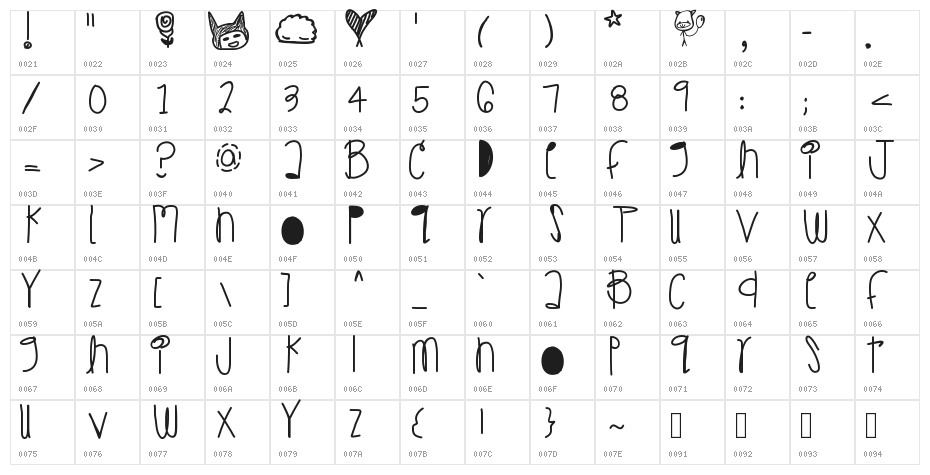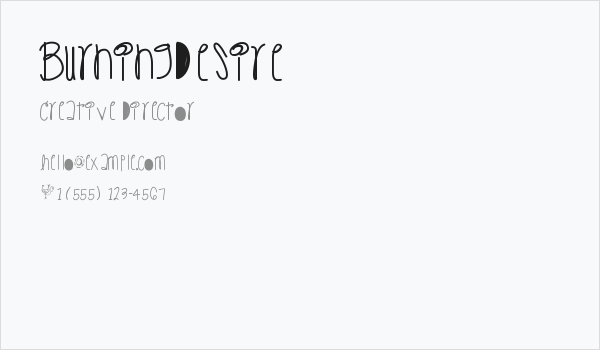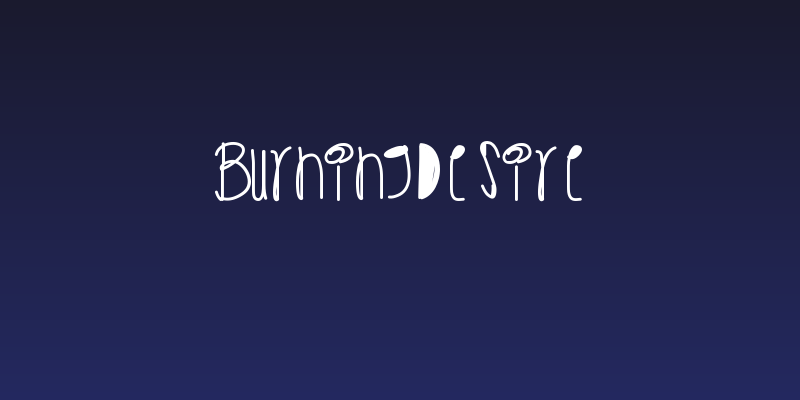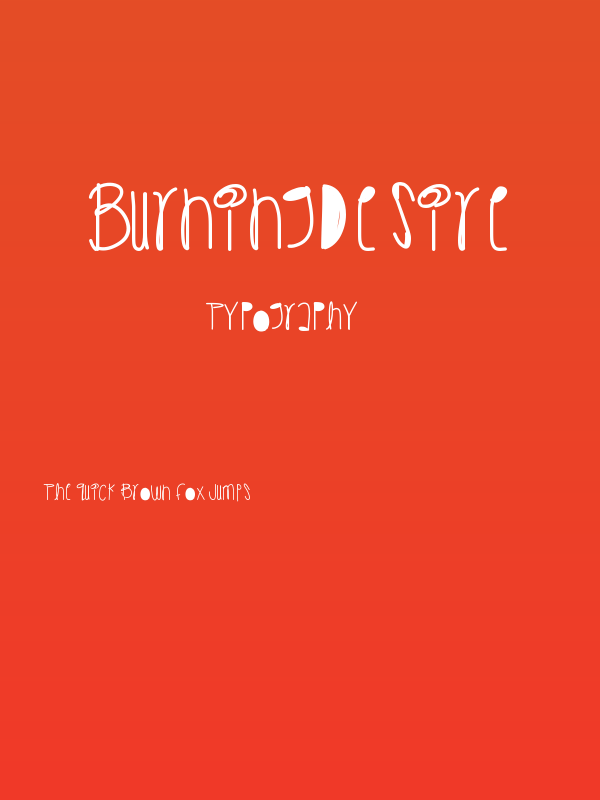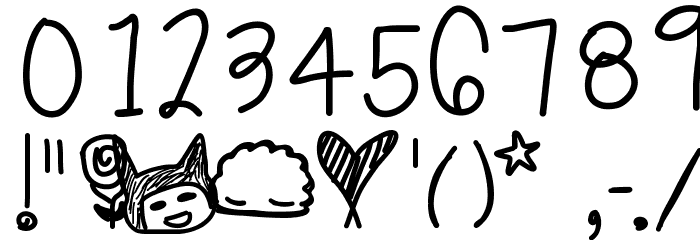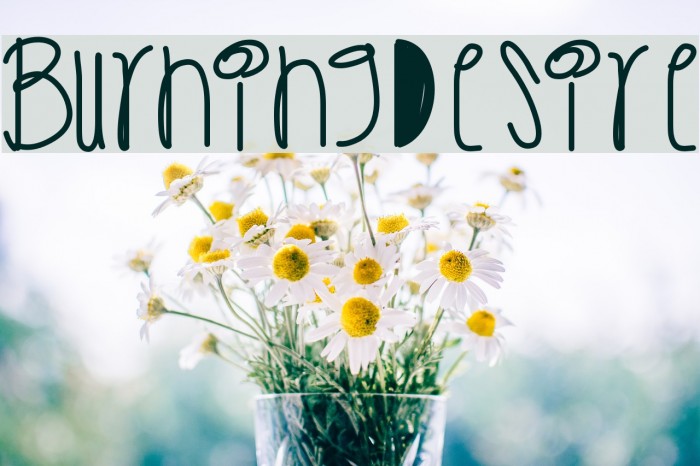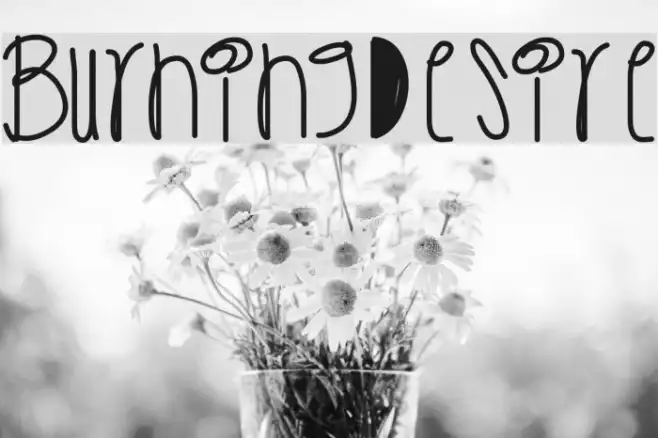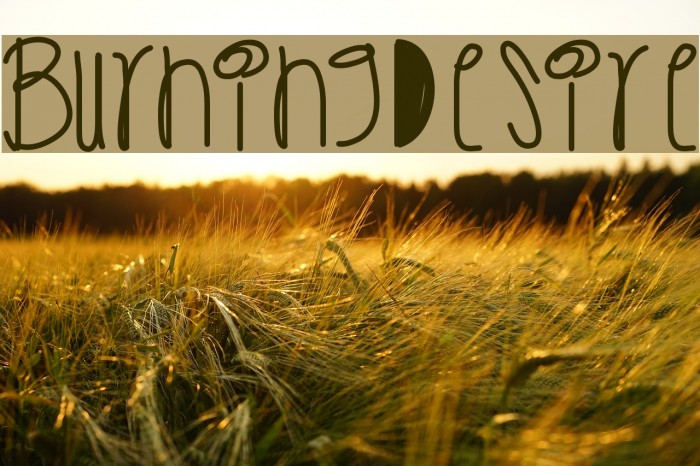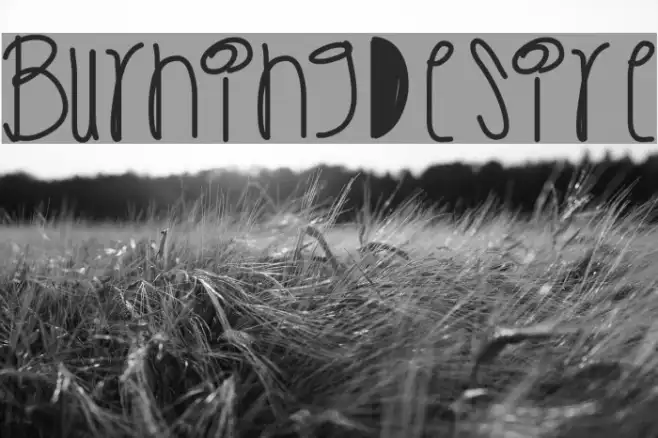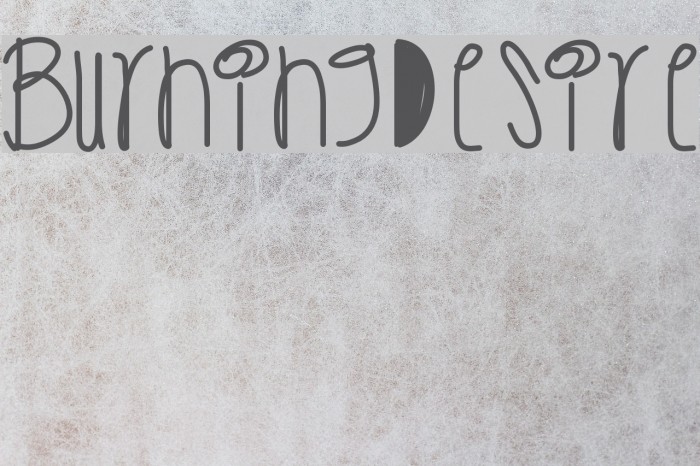
BurningDesire Font
BurningDesire Description
This playful and whimsical font features a unique blend of rounded and elongated characters, giving it a lively and energetic appearance. The uppercase and lowercase letters maintain a consistent style, with some letters exhibiting exaggerated curves and loops. The numbers are similarly styled, with a playful touch that complements the overall design. Special characters include a variety of fun and quirky symbols, adding to the font's charm. This font is perfect for projects that require a touch of creativity and fun, such as children's books, playful branding, or artistic posters.
| Use Case | Headlines, Logos, Creative Designs |
| Proposed Projects | Ideal for children's books, playful branding, artistic posters, and creative designs. |